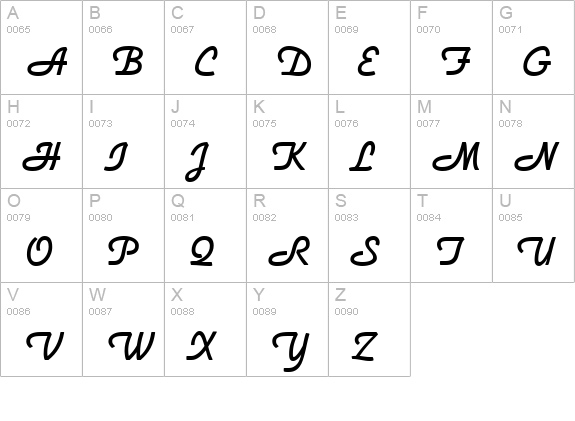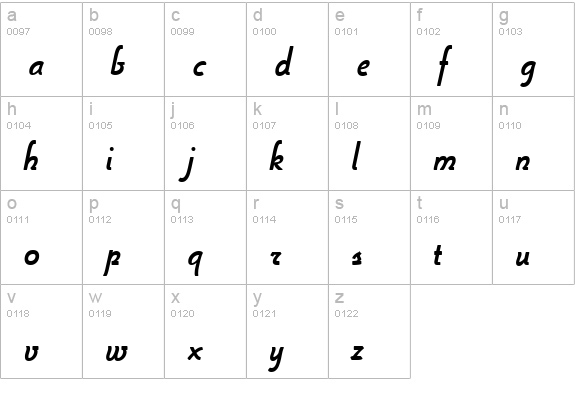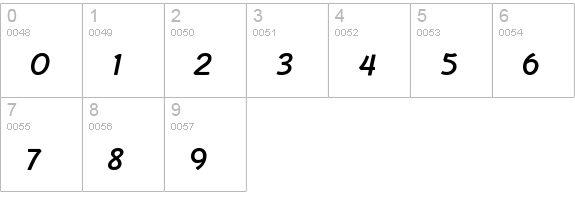
Lonsdale Font Details
Lonsdale font is a stunning display typeface that exudes elegance and sophistication. With its sleek lines and modern feel, this font is perfect for adding a touch of class to any design project. The versatility of Lonsdale font allows it to be used for a wide range of applications, from branding and packaging to web design and advertising. What makes Lonsdale font even more appealing is that it is available for free download at FontsMarket.com. This means that you can easily access this beautiful font and incorporate it into your projects without any cost. Don't miss out on the opportunity to enhance your designs with the timeless beauty of Lonsdale font. Download it now and elevate your creative work to the next level.